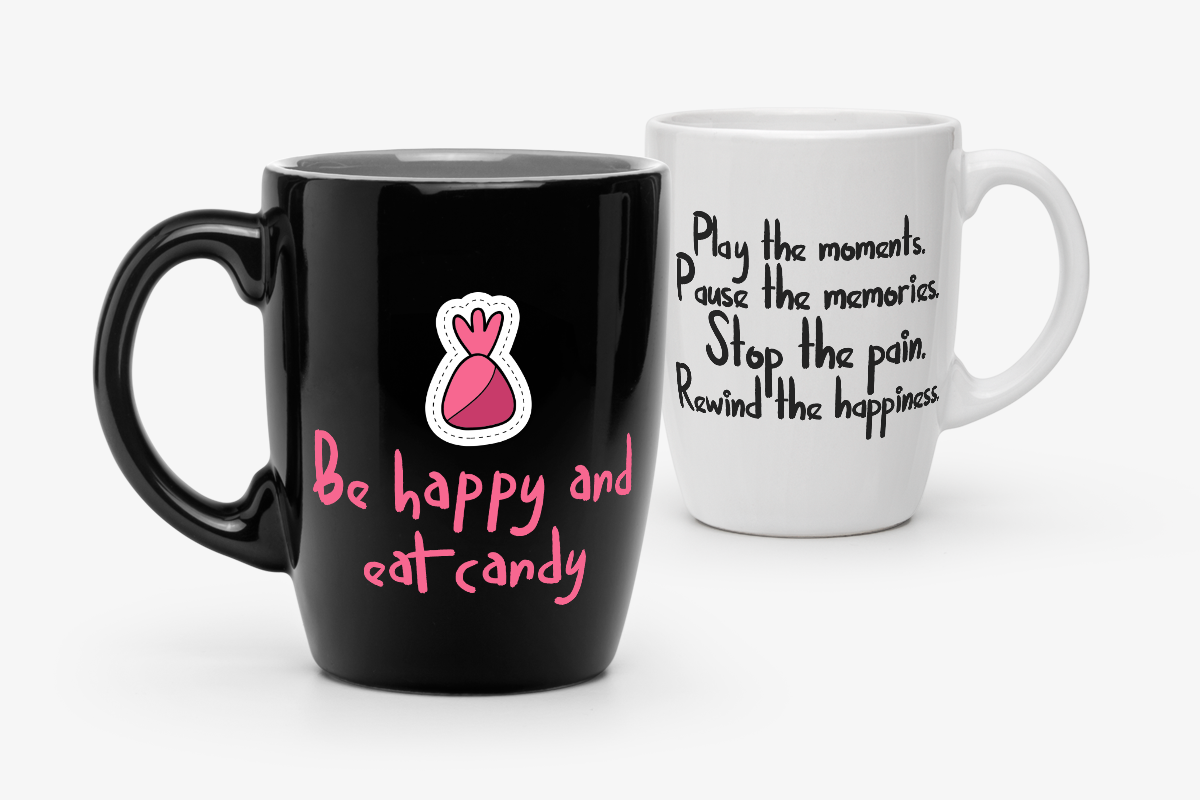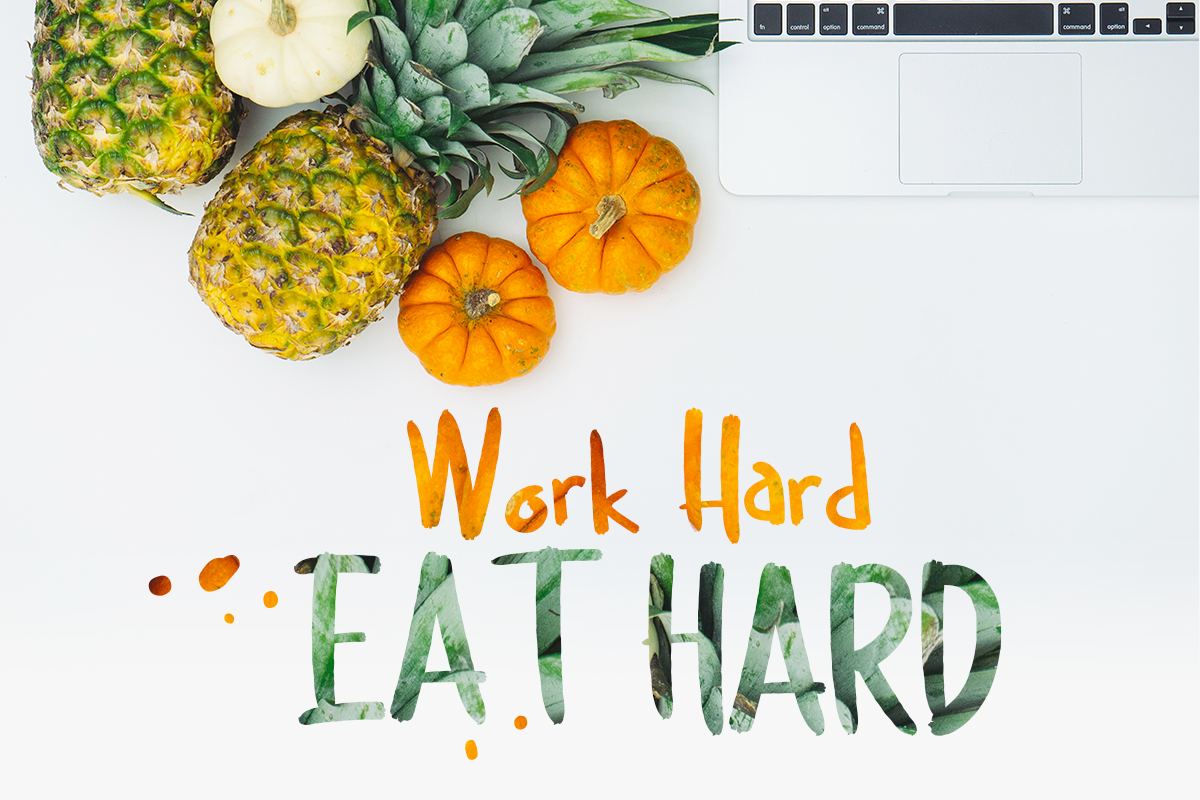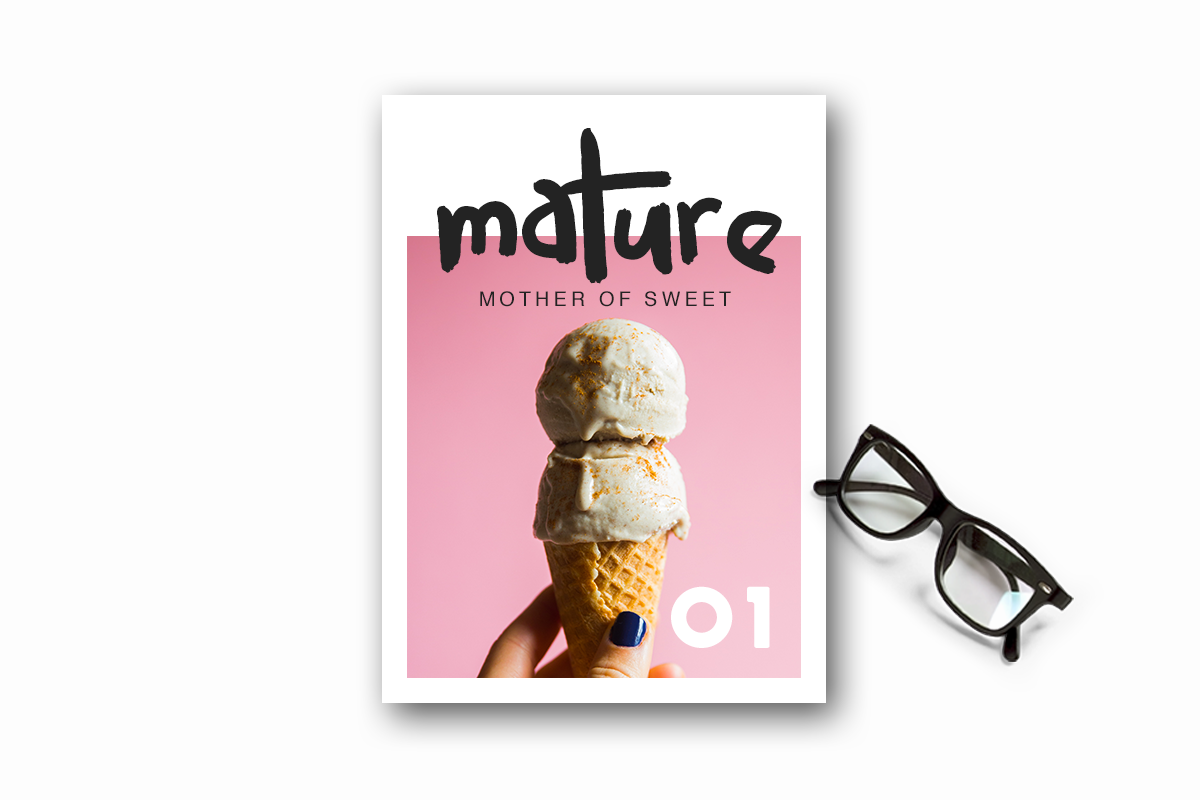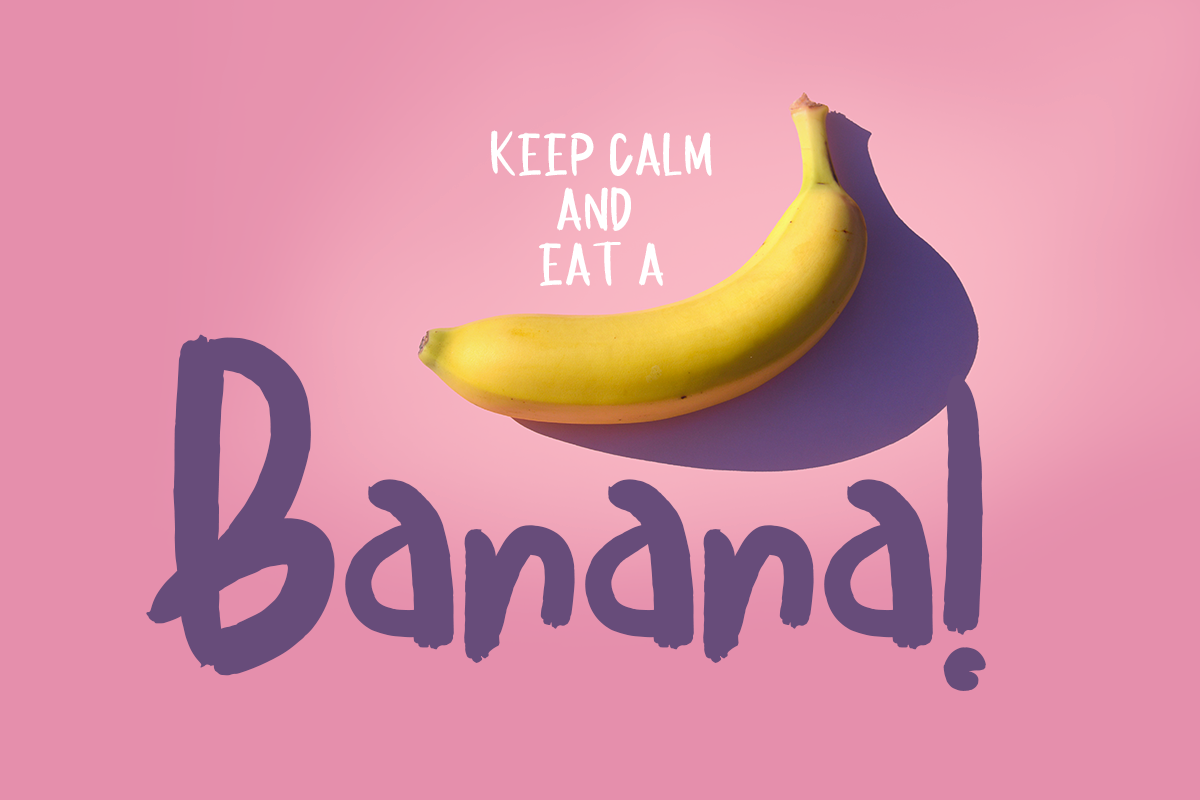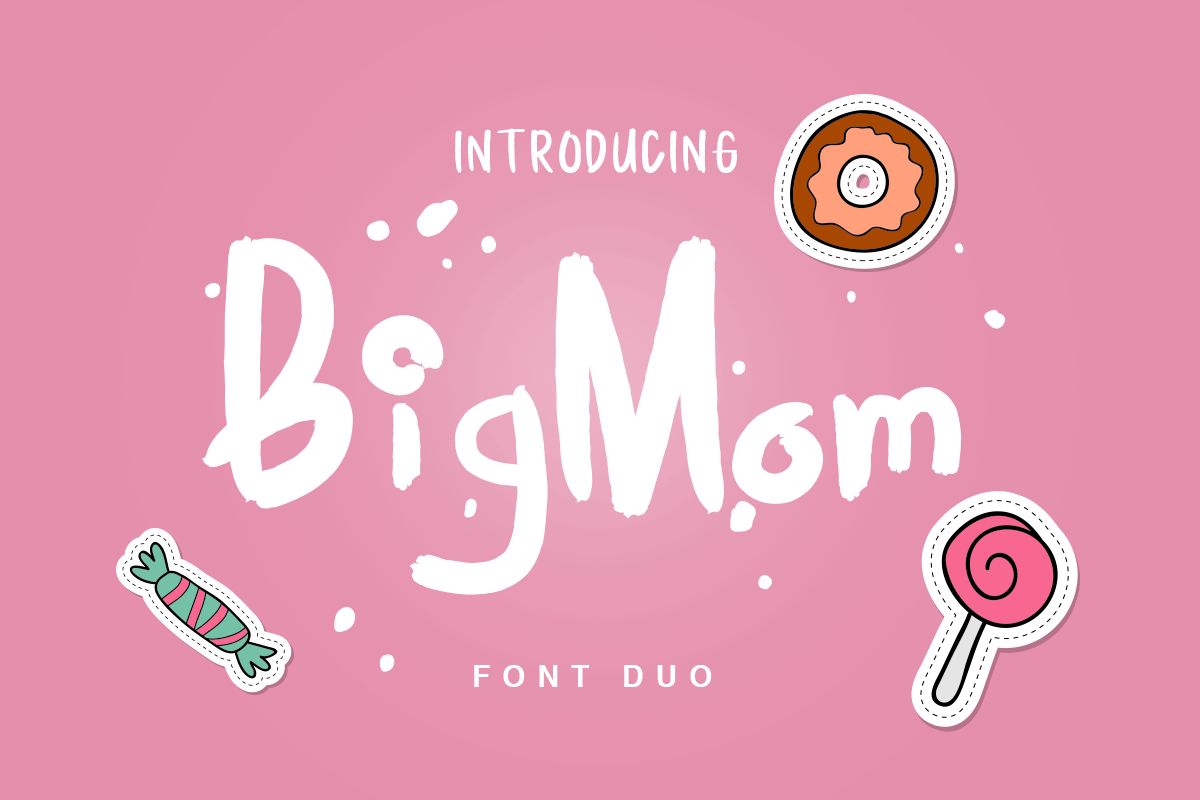
Introducing BigMom Font Duo - fun display and script style, every single letters have been carefully crafted to make your text looks beautiful. With modern unique style this font will perfect for many different project ex: quotes, blog header, poster, wedding, branding, logo, fashion, apparel, letter, invitation, stationery, etc.